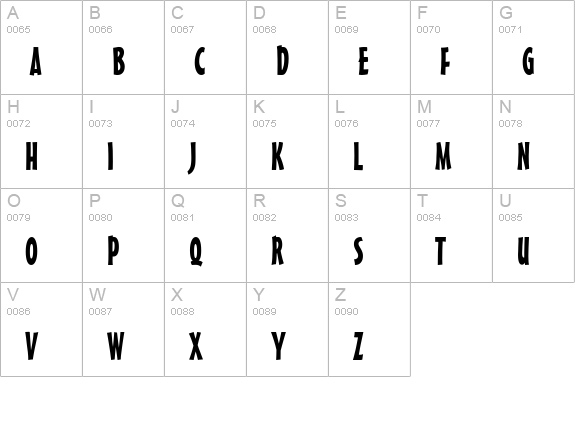
Massey Condensed Normal Font Details
Massey Condensed Normal is the standard, neutral, condensed-width variant in the Massey typeface family \xE2\x80\x94 well suited to general body text, paragraphs, and standard typographic work.
Massey Condensed Normal is a sleek and modern font that exudes sophistication and elegance. With its condensed and streamlined letterforms, this font is perfect for adding a touch of refinement to any design project. The clean lines and balanced proportions of Massey Condensed Normal make it ideal for both headings and body text, ensuring that your message is communicated clearly and effectively. This font is not only visually appealing, but it also offers a high level of readability, making it suitable for a wide range of applications. Whether you are designing a website, creating a logo, or designing a print advertisement, Massey Condensed Normal will elevate your design to new heights. But what makes Massey Condensed Normal even more enticing is the fact that it is free! That's right, this incredible font is available for download at FontsMarket.com, allowing you to enhance your designs without breaking the bank. By offering this font for free, the creators of Massey Condensed Normal have made it accessible to designers of all levels, ensuring that everyone can enjoy the beauty and versatility of this font. So why wait? Download Massey Condensed Normal now from FontsMarket.com and take your designs to the next level. With its sleek and modern aesthetic, high level of readability, and the added bonus of being free, Massey Condensed Normal is the perfect choice for any design project.